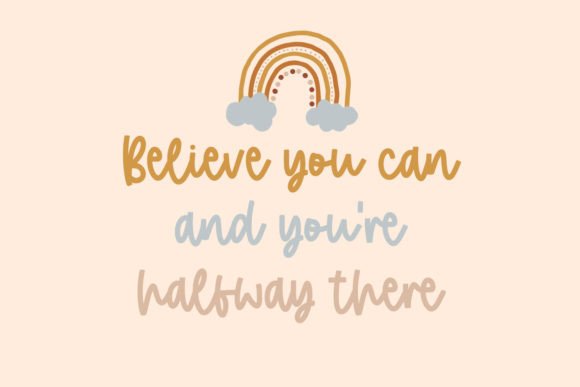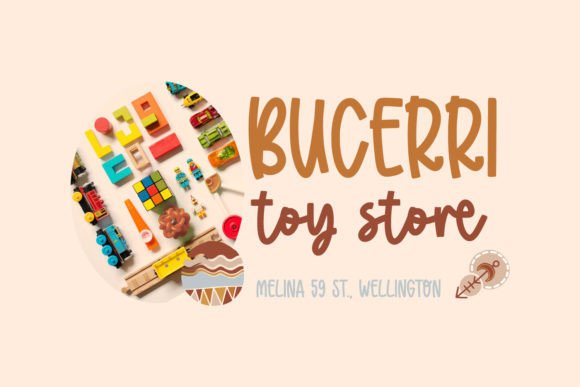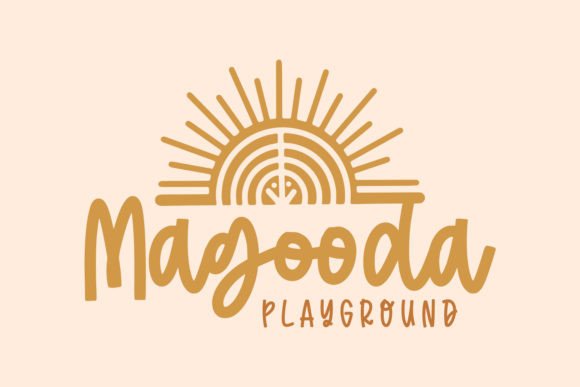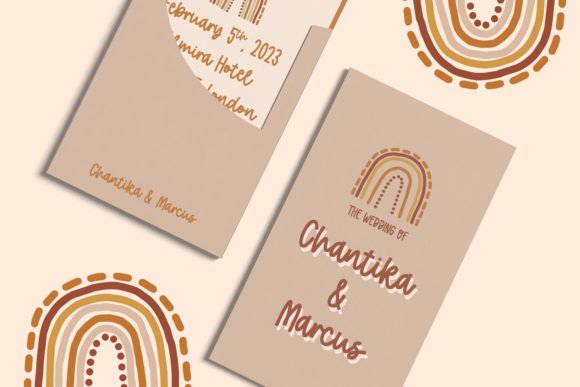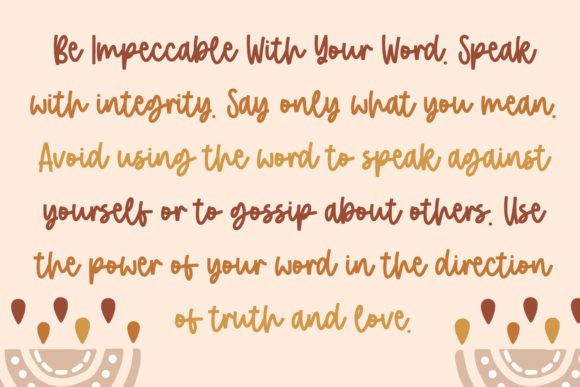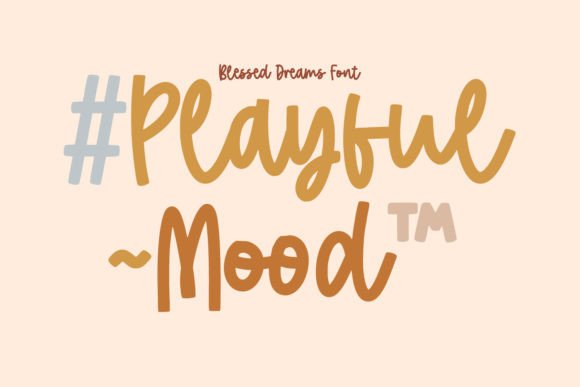
What Makes Blessed Dreams So Special?
Blessed Dreams is a visually attractive display font that boasts soft, gentle nuances caused by the swinging end of the strokes and curves. Each letter is interconnected, much like a cursive font, and the proportions are carefully crafted for optimal legibility. This makes it perfect for designers, crafters, and creative hobbyists looking to add a touch of elegance to their projects.
An Honest Review of Blessed Dreams
What I Love About Blessed Dreams ✨
- 💫 Unique and eye-catching design: The soft, gentle curves and swinging strokes make Blessed Dreams a true showstopper.
- ✅ High legibility: The carefully crafted proportions ensure that your text remains easy to read, even at smaller sizes.
- 💬 Perfect for display text: Whether you’re working on a logo, a headline, or a title, Blessed Dreams is sure to make a statement.
- ⚠️ Limited use in body text: While Blessed Dreams is perfect for display text, it may not be the best choice for longer blocks of text.
- 🤔 Some letters may require manual kerning: Depending on your design, you may need to adjust the kerning of certain letters to achieve optimal results.
Exploring OpenType Features, Glyphs, and Stylistic Alternates 🔍
One of the best things about Blessed Dreams is its support for OpenType features, glyphs, and stylistic alternates. These features allow you to customize your text and add more personality to your designs.
- OpenType features: These include ligatures, stylistic sets, and swashes that can help you create unique and eye-catching text.
- Glyphs: These are special characters that can be used to add more personality to your text, such as flourishes and ornaments.
- Stylistic alternates: These allow you to switch between different versions of a letter or character, giving you more flexibility in your design.
The Backstory Behind Blessed Dreams 📚
Blessed Dreams was created with the intention of crafting a font that would evoke a sense of elegance and sophistication. The designer wanted to create a font that would be perfect for display text, while still being easy to read. The result is a beautiful, handwritten font that’s perfect for designers, crafters, and creative hobbyists.
Q: What is Blessed Dreams font?
A: Blessed Dreams is a visually attractive display font with soft, gentle nuances caused by the swinging end of the strokes and curves.
Q: Is Blessed Dreams suitable for body text?
A: While Blessed Dreams is perfect for display text, it may not be the best choice for longer blocks of text.